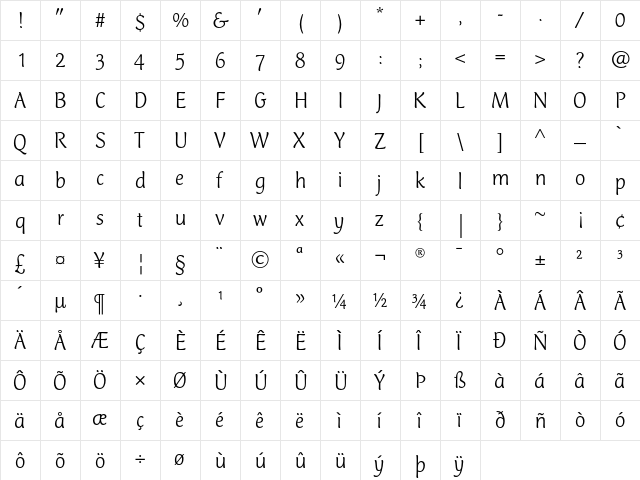
Club Type Mercurius Light
Design Context for Club Type Mercurius Typeface
Club Type Mercurius offers clean, dependable letterforms without strong stylistic allegiance, making it a practical choice for designers who need flexibility. Its slender proportions lend an understated elegance to any composition.